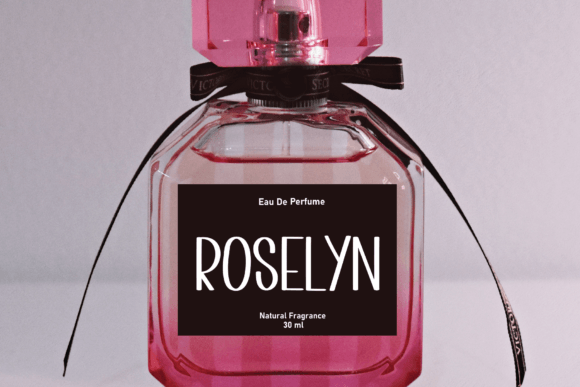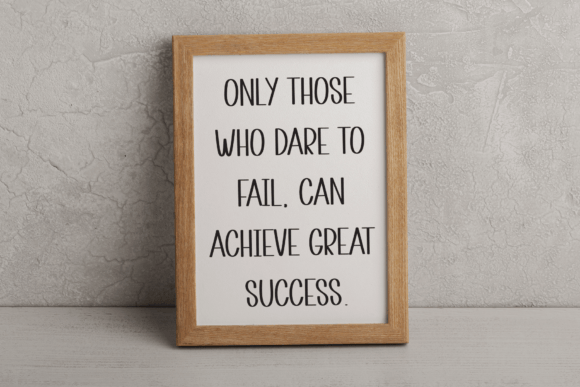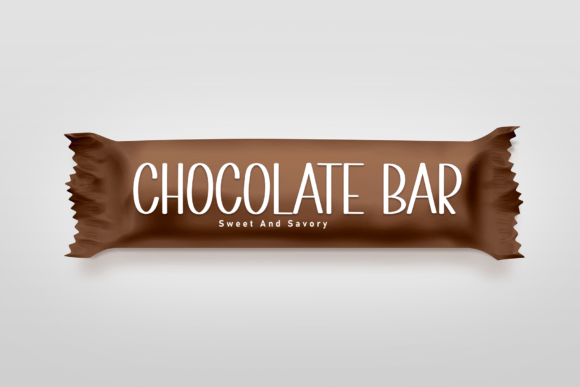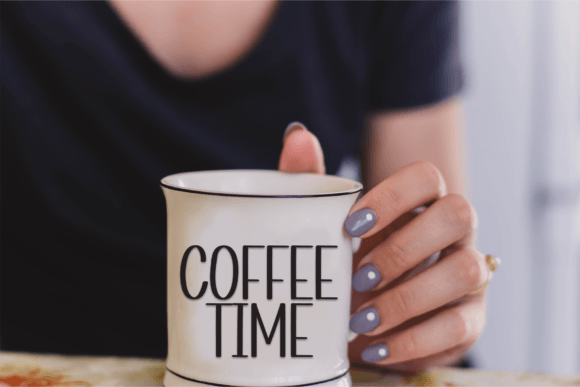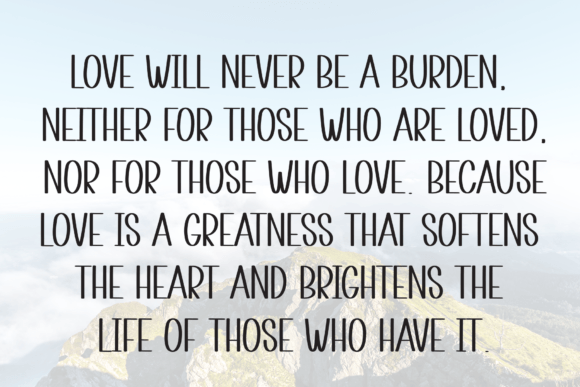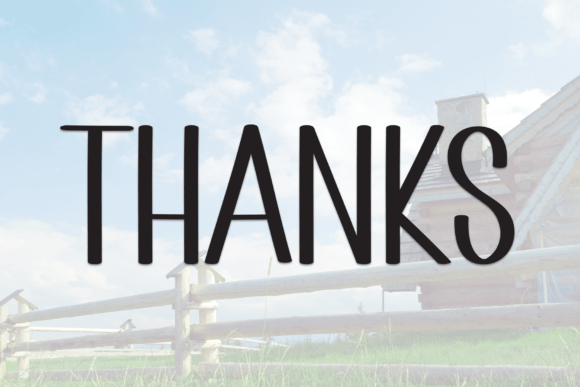
Introducing Farmhouse Font: The Sweet and Friendly Handwritten Font for Your Design Needs
Are you a designer or crafter looking for a font that can add a touch of warmth and personality to your designs? Look no further than Farmhouse Font, a sweet and friendly handwritten font that’s perfect for creating eye-catching wedding invitations, cards, and other designs that require a fun and playful touch.
What Makes Farmhouse Font Special?
Farmhouse Font is a unique and charming handwritten font that’s designed to bring a sense of joy and whimsy to your designs. Its cute and fun style makes it ideal for a variety of projects, from wedding invitations and cards to party decorations and craft projects. With its friendly and approachable feel, Farmhouse Font is sure to delight your audience and leave a lasting impression.
Wedding invitations and cards are a great way to showcase the beauty and elegance of Farmhouse Font. This font is perfect for couples who want to add a personal and romantic touch to their wedding stationery. With Farmhouse Font, you can create beautiful and unique wedding invitations, save-the-date cards, and thank-you notes that will set the tone for your special day.
Why Designers and Crafters Love Farmhouse Font
Designers and crafters love Farmhouse Font for its versatility and ease of use. This font is perfect for a variety of design projects, from digital crafts to handmade cards and invitations. With Farmhouse Font, you can add a personal touch to your designs and create unique and eye-catching projects that will stand out from the crowd.
- Cute and Fun Style: Farmhouse Font has a playful and charming style that’s perfect for adding a touch of whimsy to your designs.
- Handwritten Look: This font has a beautiful handwritten look that’s perfect for creating personal and unique designs.
- Easy to Read: Farmhouse Font is easy to read, making it perfect for use in a variety of design projects.
- Versatile: This font is perfect for a variety of design projects, from digital crafts to handmade cards and invitations.
How to Use Farmhouse Font in Your Designs
- Pair it with Other Fonts: Farmhouse Font looks great when paired with other fonts, such as serif or script fonts.
- Use it for Headings and Titles: This font is perfect for use in headings and titles, where its playful style can really shine.
- Add it to Your Digital Crafts: Farmhouse Font is perfect for use in digital crafts, such as printable art and party decorations.
Farmhouse Font is a sweet and friendly handwritten font that’s perfect for designers and crafters who want to add a touch of warmth and personality to their designs. With its cute and fun style, this font is ideal for creating eye-catching wedding invitations, cards, and other designs that require a fun and playful touch. So why wait? Download Farmhouse Font today and start creating your own unique and charming designs!